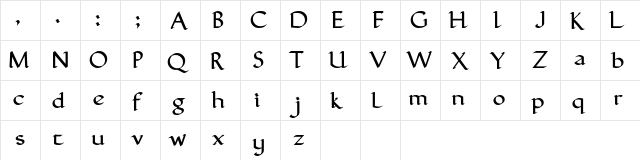
Tuscany Medium
Design Context for Tuscany Typeface
Tuscany is a composed and adaptable typeface that performs quietly and consistently across a wide range of design contexts.
Pro Tip: Use Tuscany in both headline and body roles to test its range before committing to a single application.